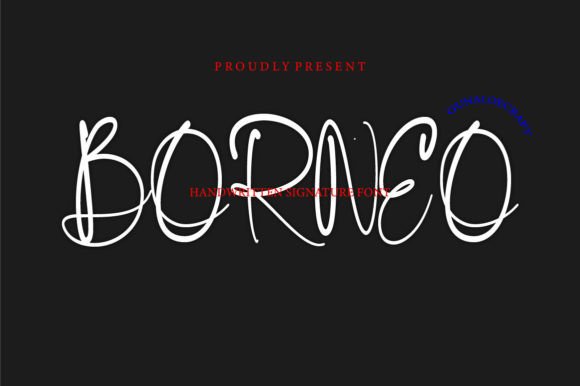
Journey into the Realm of Borneo Font: A Symphony of Elegance and Charm for Your Creative Endeavors
Unleash the Power of Borneo Font, a Masterpiece of Modern Handwritten Elegance
In a world saturated with digital noise, your brand's identity yearns for a touch of distinction, a whisper of individuality that sets it apart from the mundane. Enter Borneo Font, a modern handwritten signature font poised to elevate your branding and visual communication to dizzying heights.
Borneo Font: A Symphony of Elegance and Charm
Crafted with meticulous care, Borneo Font embodies the essence of timeless elegance, effortlessly blending classic charm with a dash of contemporary flair. Its graceful curves and meticulously crafted strokes evoke a sense of authenticity and sophistication that resonates with discerning audiences.
Why Borneo Font Should Be Your Creative Ally
Harness the Allure of Handwritten Charm: In an era of digital uniformity, Borneo Font's handwritten style cuts through the clutter, captivating your audience with its inherent warmth and human touch. It's a subtle yet potent reminder that behind every brand, there are real people, pouring their heart and soul into their work.
Elevate Your Branding: Borneo Font is more than just a collection of letters; it's a powerful branding tool that breathes life into your logo, stationery, and marketing materials. It's the perfect choice for businesses seeking to establish a strong and memorable identity, one that lingers in the minds of customers long after they've encountered it.
Create Enduring Impressions: From wedding invitations that exude romance to social media posts that sparkle with personality, Borneo Font leaves an indelible mark on every project it adorns. It's a versatile font that adapts seamlessly to a myriad of creative pursuits, adding a touch of elegance and sophistication to every endeavor.
Borneo Font: The Perfect Choice for Discerning Designers and Businesses
If you seek a font that transcends the ordinary, that elevates your creative projects to new heights of artistry, then look no further than Borneo Font. Its timeless elegance, handwritten charm, and versatility make it the ideal choice for designers and businesses who demand the best.
Embrace the beauty of Borneo Font today and embark on a creative journey that will leave an enduring legacy of visual excellence.